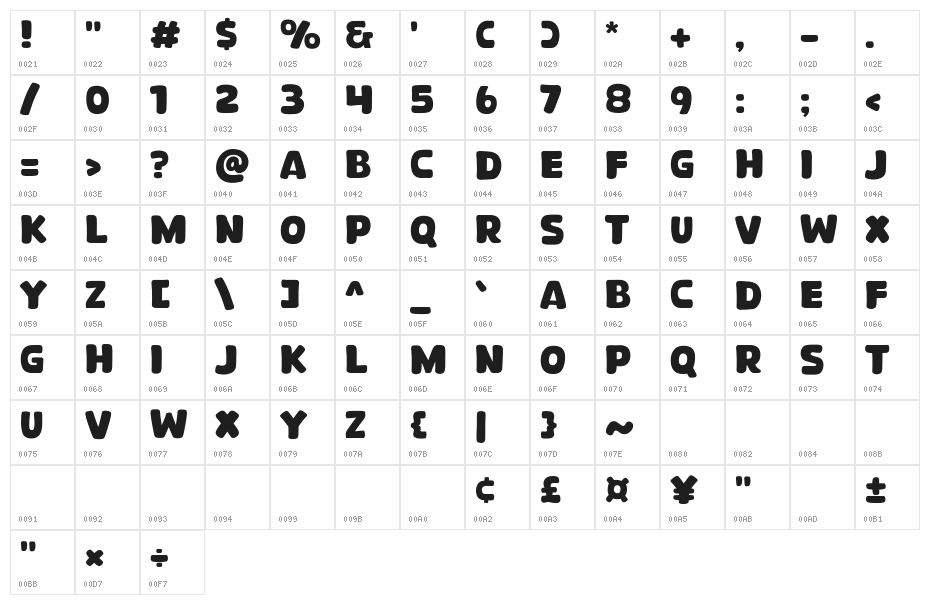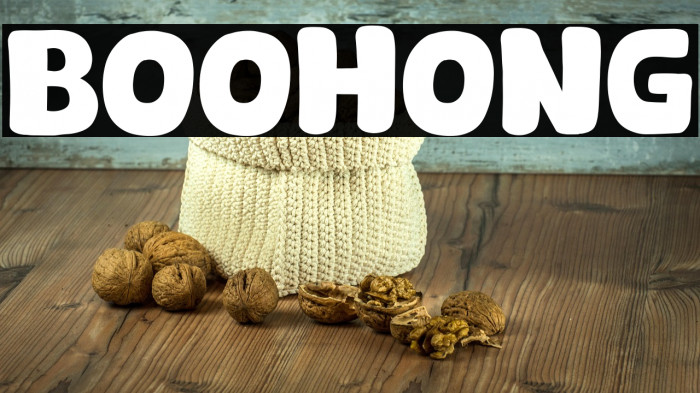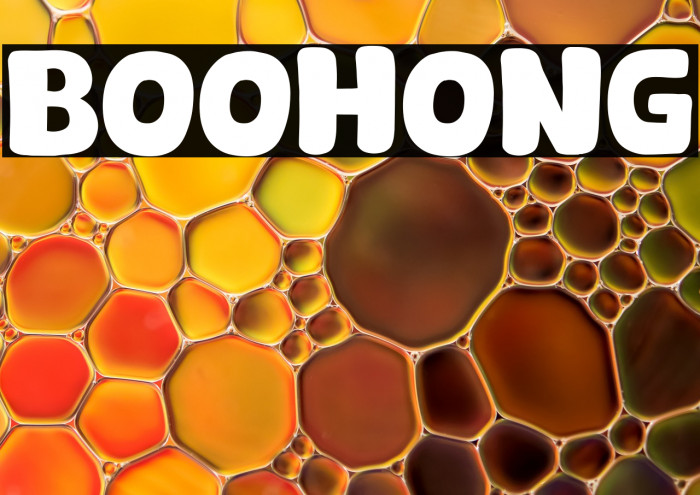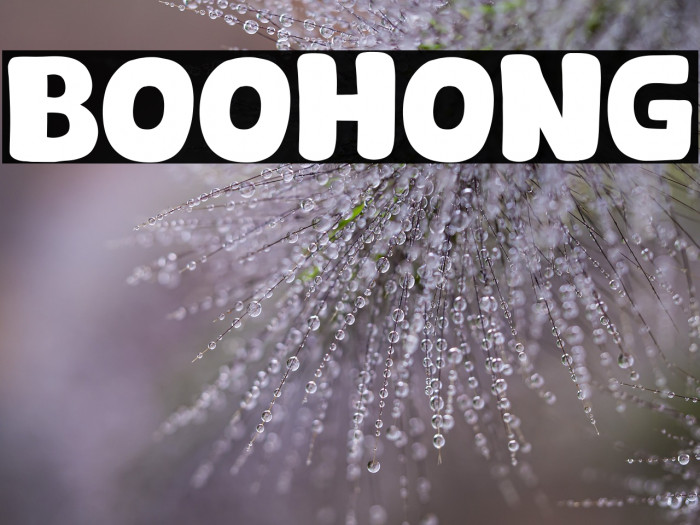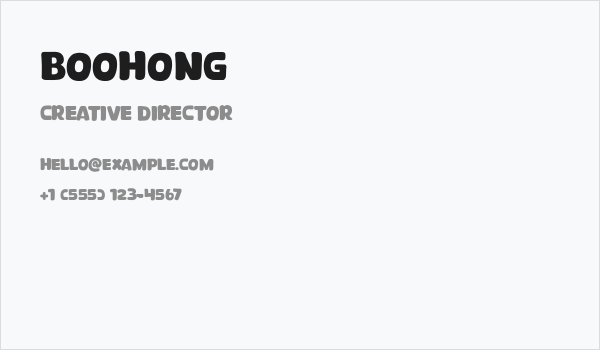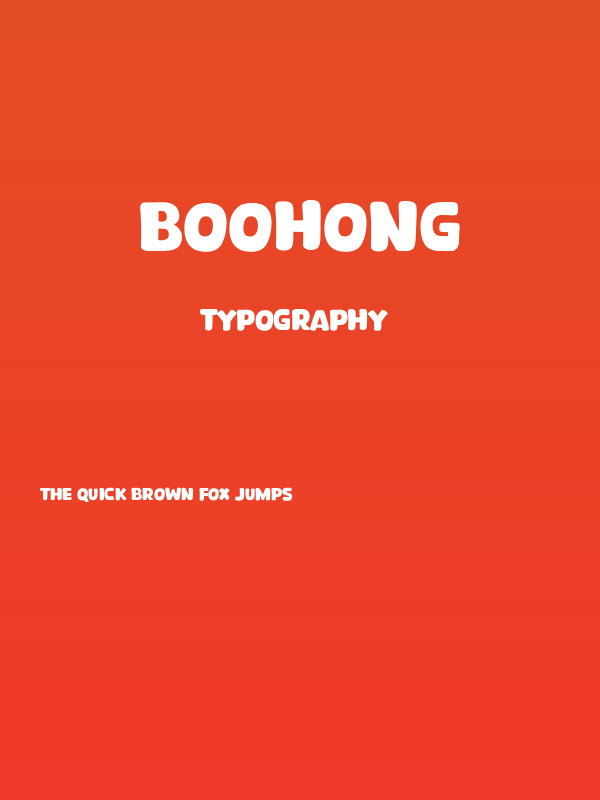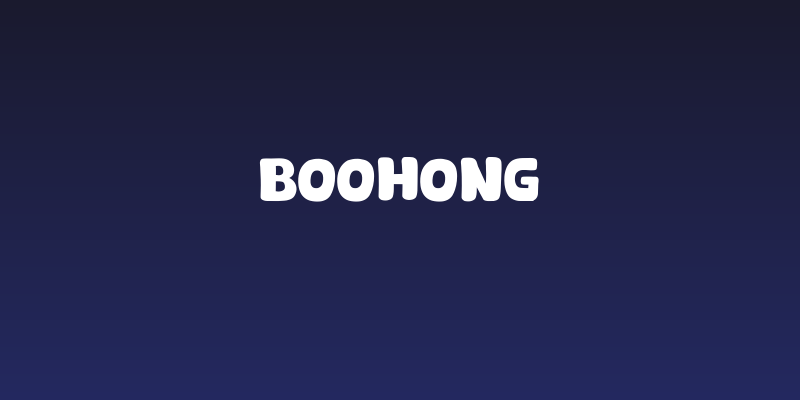
Boohong Font
Boohong Description
This font features bold, rounded characters with a playful and friendly appearance. The letters are thick and uniform, creating a sense of cohesion and balance. The rounded edges and smooth curves give it a soft, approachable feel, making it ideal for informal or fun projects. The numbers and special characters maintain the same rounded style, ensuring consistency across all text elements. This font is highly legible and stands out due to its boldness, making it suitable for attention-grabbing headlines or titles.
| Proposed Projects | Ideal for children's books, playful branding, casual invitations, and eye-catching headlines. |